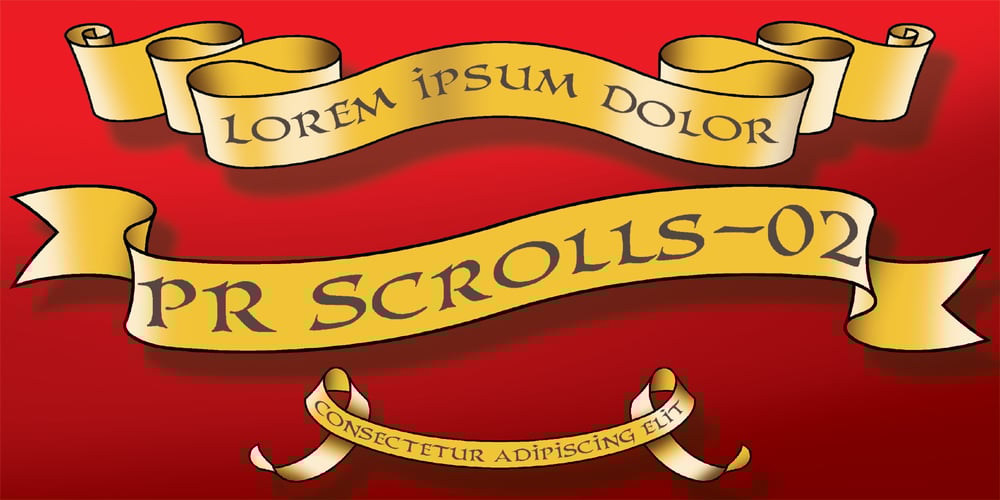
PR Scrolls 02 Font Family was designed by Peter Rempel and published by PR Fonts. PR Scrolls 02 contains 1 styles and family package options. Inspired by food labels, signs and coats of arms, PR-Scrolls is a collection of images which can be used for framing text in contexts where antiquity, craftsmanship, or traditional quality are conveyed. There are several sets of glyphs which work together to make a variety of shapes, or banners of custom length. Most of the glyphs are presented in a range of three or more widths.